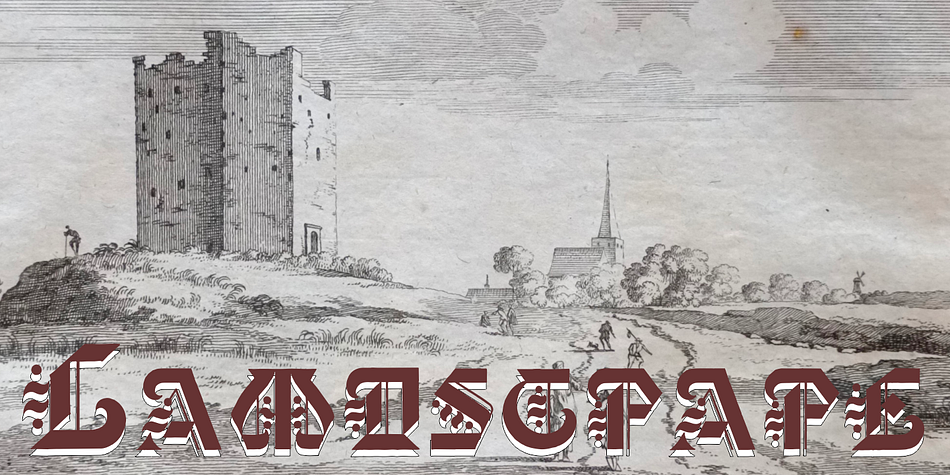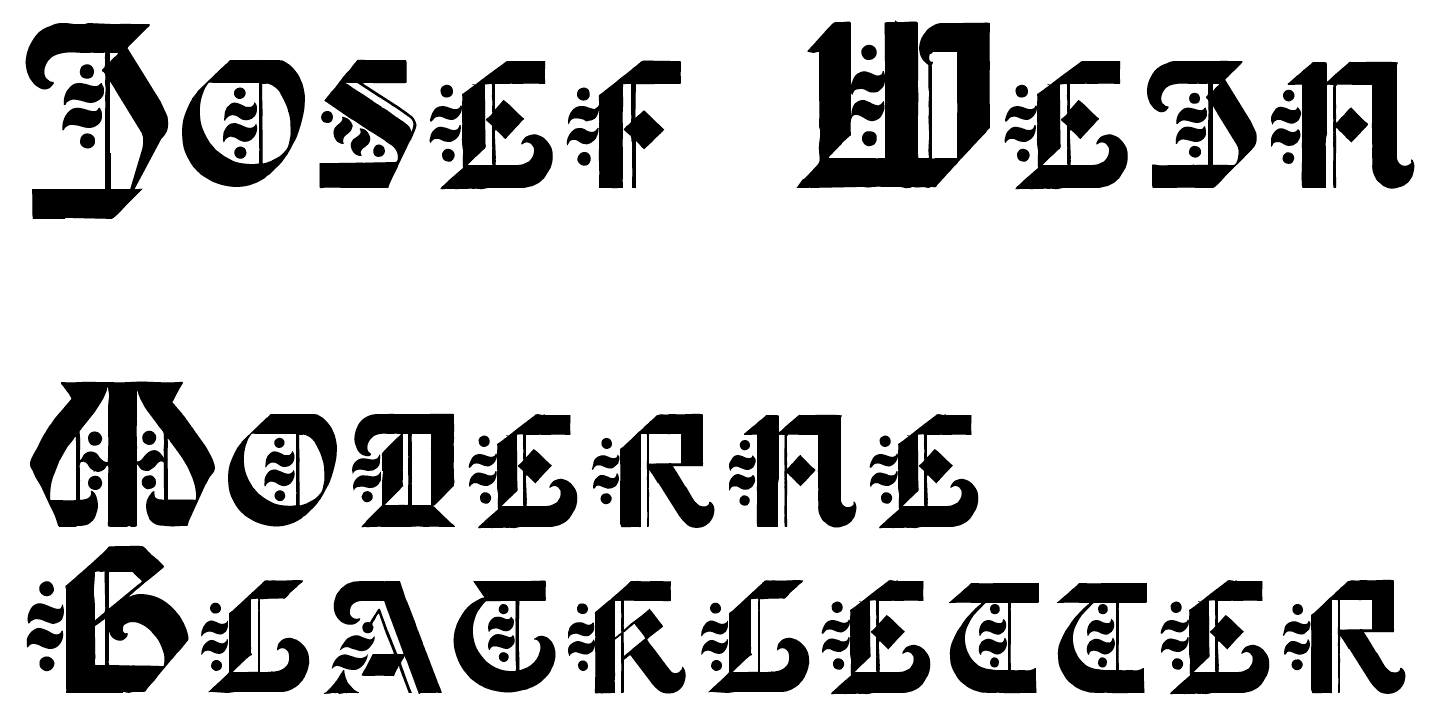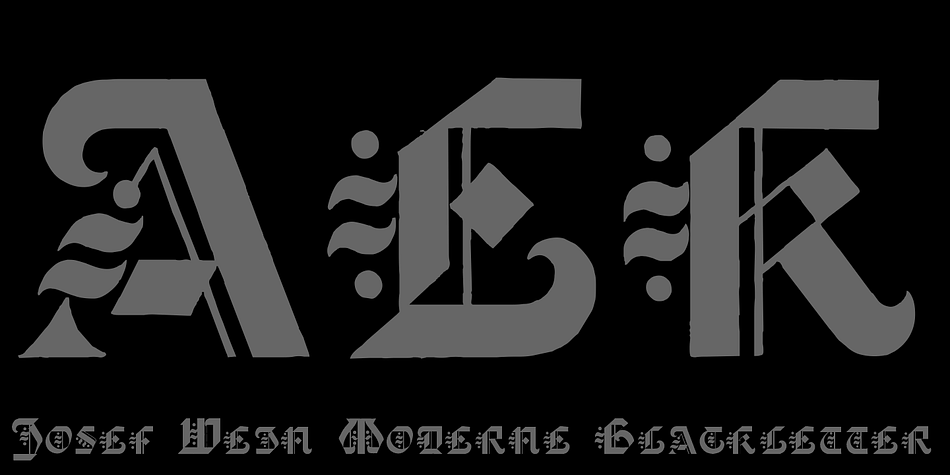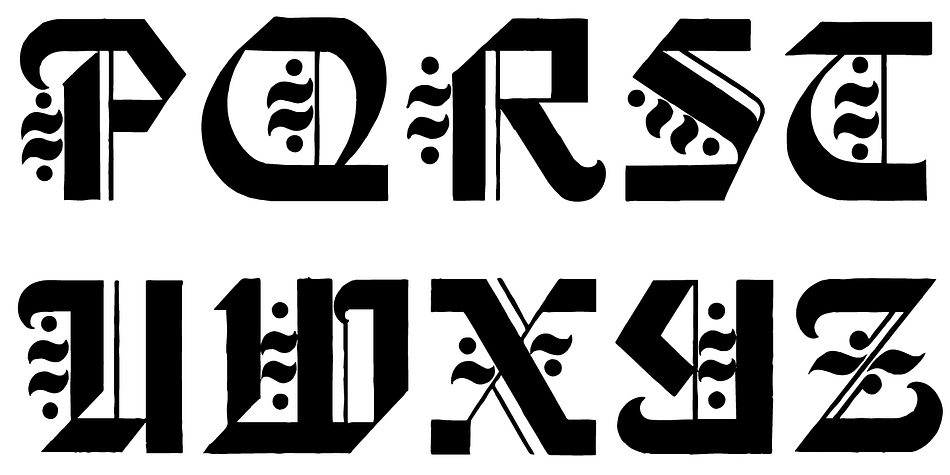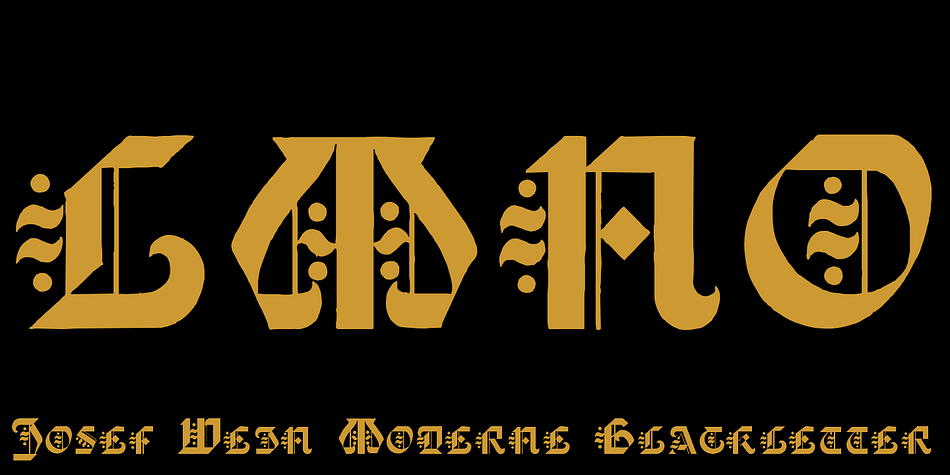
Josef Wein Moderne Blackletter is a blackletter font published by Intellecta Design.
Josef Wein Moderne Blackletter is inspired in the rare work of Josef Heinz, who publish, in 1900 (Wien, Leipzig), a small catalog with gothic and art nouveau inspiration : “Moderne Schriften / herausgegeben und verlegt von Josef Heim”, or, in the french title : Alphabetes Modernes.